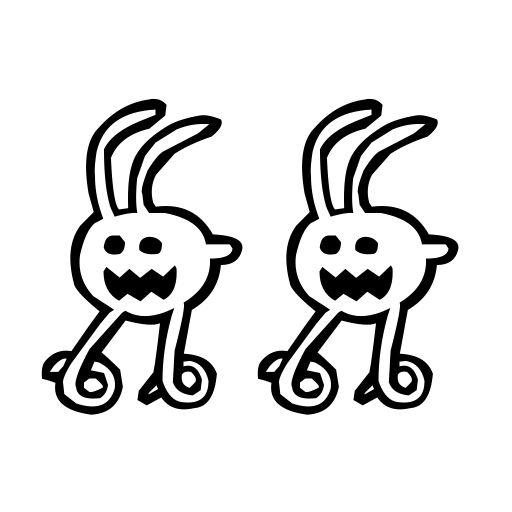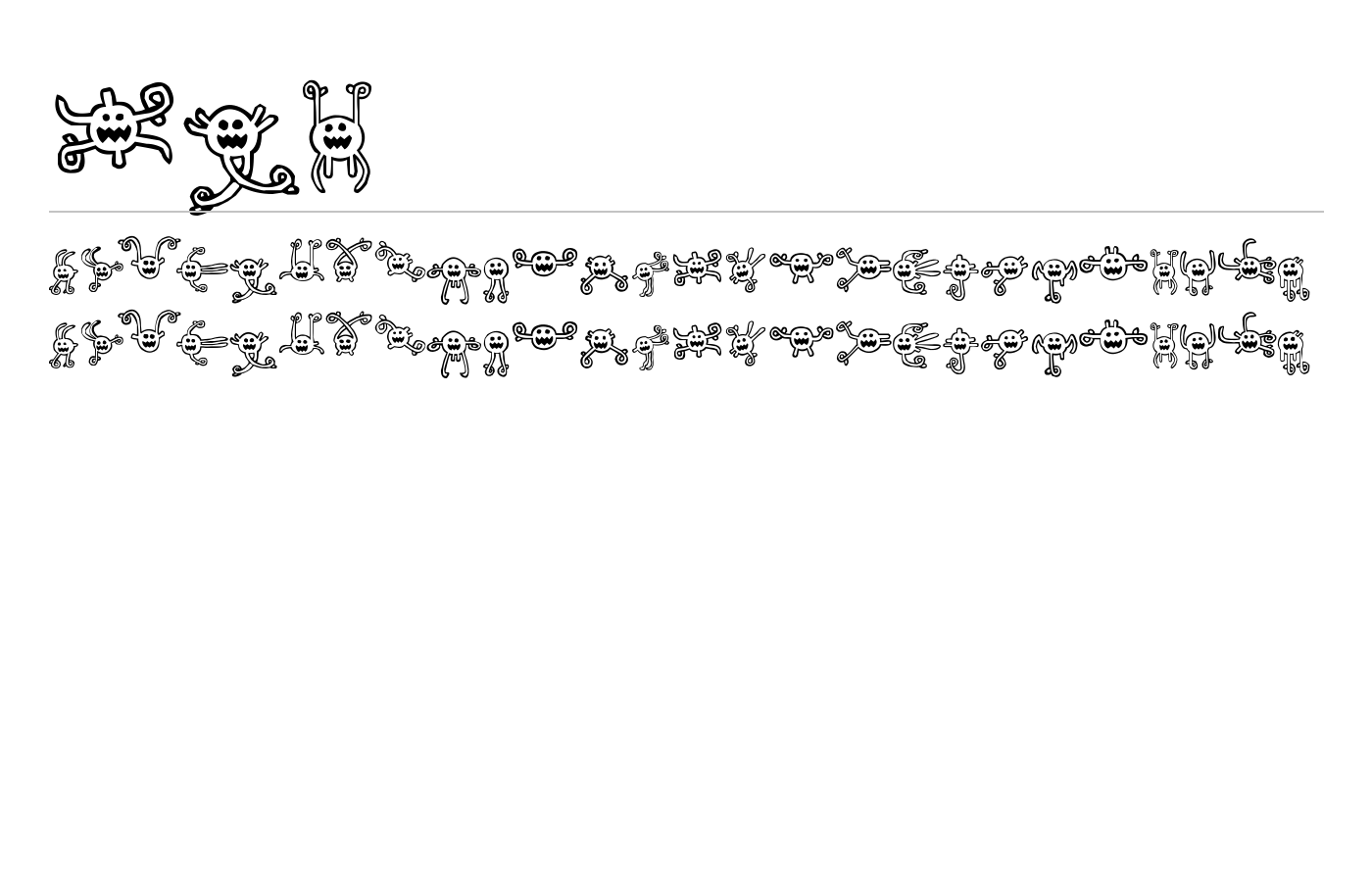
Between My Ears Font is a playful and quirky display typeface featuring whimsical, monster-like glyphs with rounded, irregular shapes and expressive faces. This highly decorative font works best for fun, creative projects such as children's materials, party invitations, and unique branding where an informal, lively, and imaginative mood is desired. Its decorative nature limits readability for long texts but makes it perfect for eye-catching headlines and distinctive design accents.